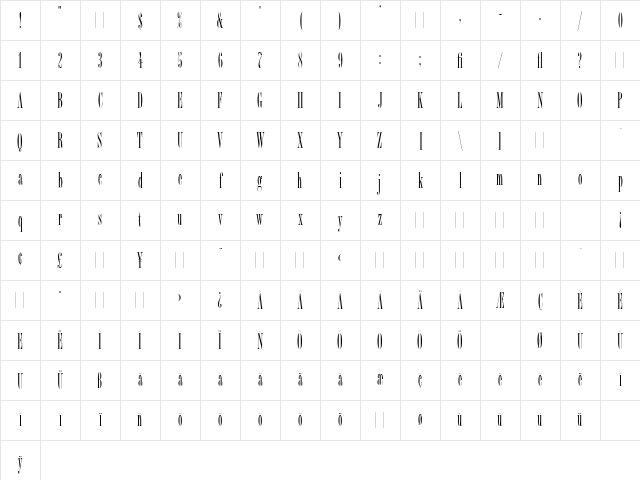
Complete Bordeaux Roman LET Plain glyph index. Displaying only characters natively supported by Bordeaux Roman LET Plain font.
Bordeaux Roman LET is a composed and adaptable typeface that performs quietly and consistently across a wide range of design contexts.